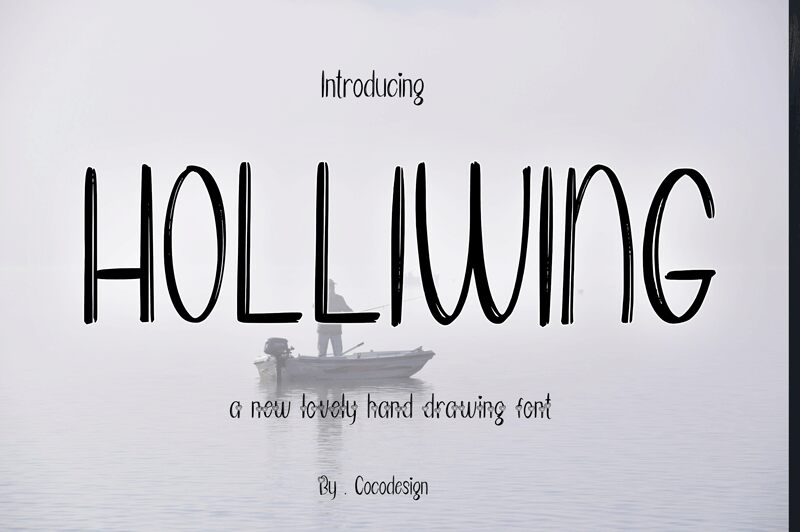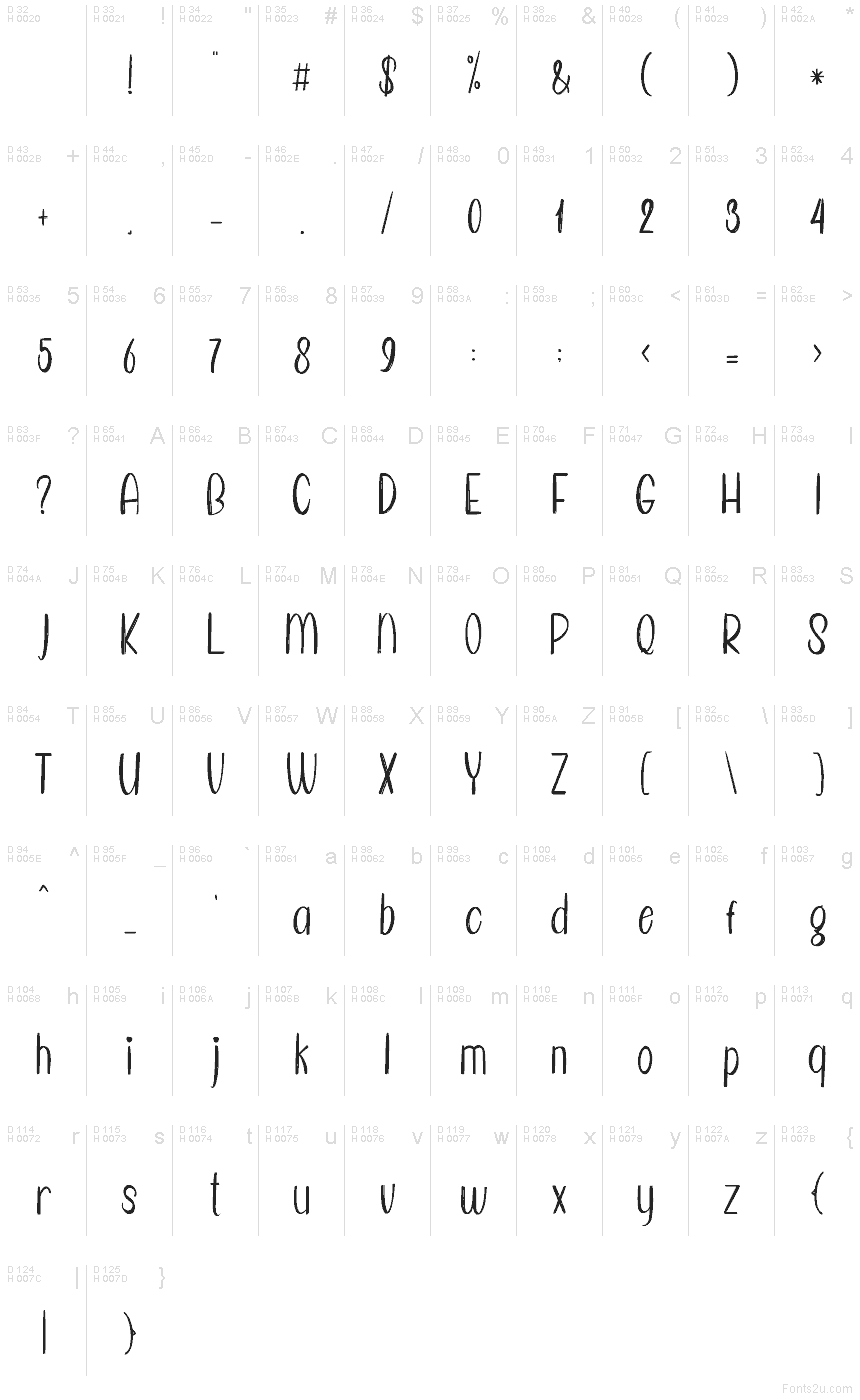
HOLLIWING
Holliwing font by Coco Design is a whimsical and cartoonish condensed handwriting font with rounded and elongated letters. This stylish typeface is irregularly aligned, which gives it more character. Holliwing might be less serious than other fonts, but it has the friendly touch that other types of themes cannot provide.